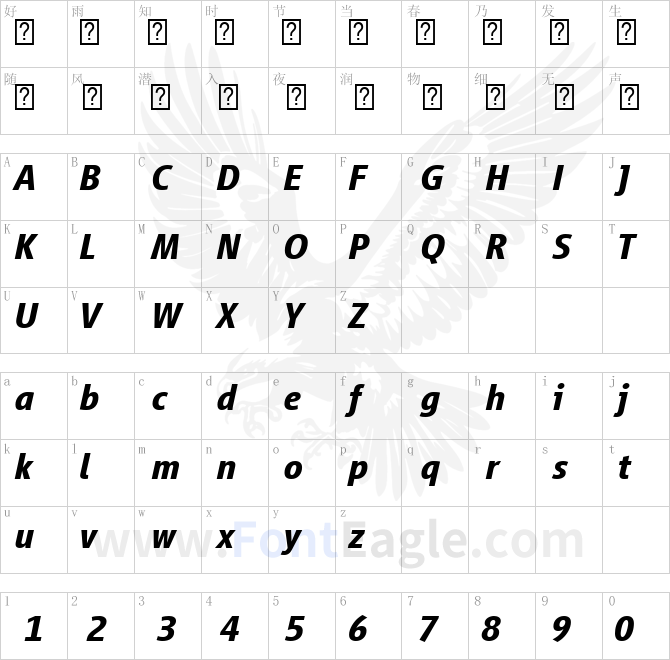
- Font name:Vialog LT Com Bold Italic
- Font Subfamily ID:Linotype GmbH:Vialog LT Com Bold Italic:2006
- Font Full Name:Vialog LT Com Bold Italic
- Font Version:Version 1.20; 2006
- Postscript:VialogLTCom-BoldItalic